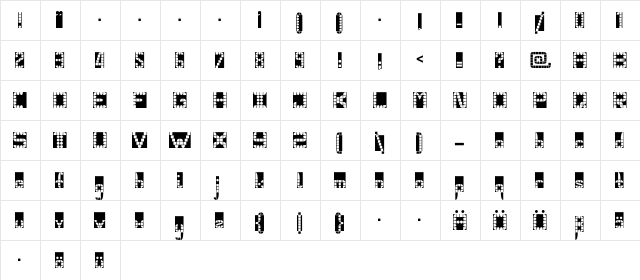
PangolinBlack Negative
PangolinBlack is a composed and adaptable typeface that performs quietly and consistently across a wide range of design contexts.